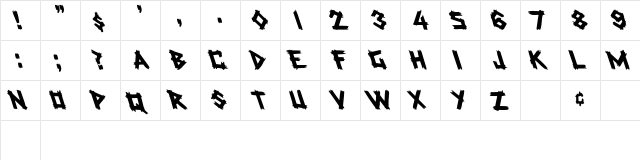
Rockmaker Lefty Regular
Design Context for Rockmaker Lefty Typeface
Rockmaker Lefty is a composed and adaptable typeface that performs quietly and consistently across a wide range of design contexts.
Pro Tip: Use Rockmaker Lefty in both headline and body roles to test its range before committing to a single application.